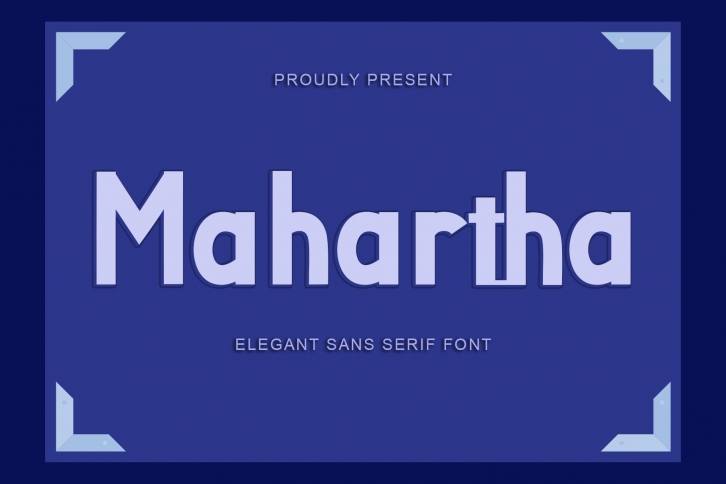
Mahartha is a chunky and fun display font. Whether you use it for cartoon related designs, children games or just any creation that requires a lovely touch, this font will be an amazing choice.